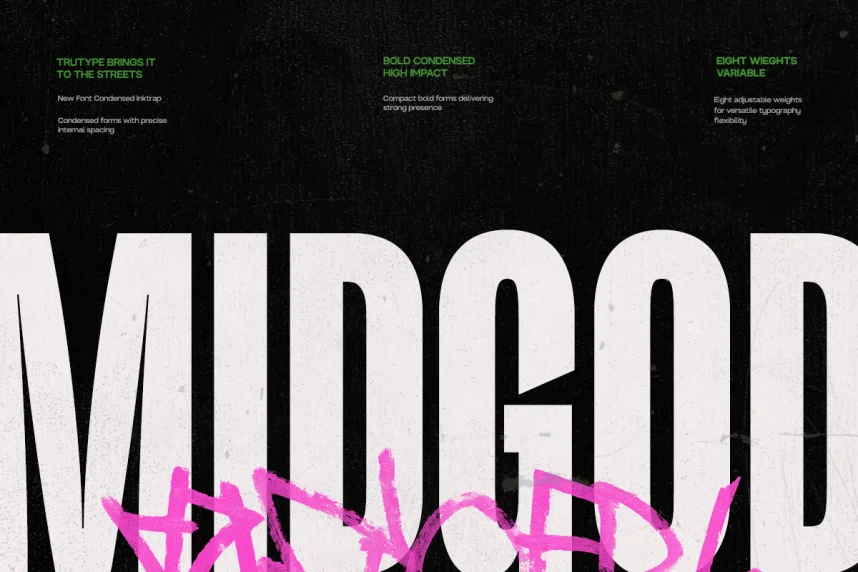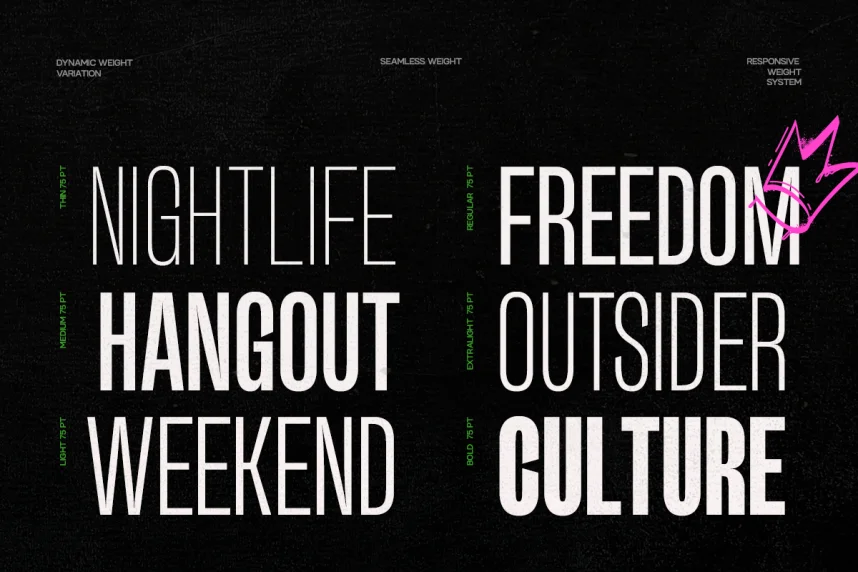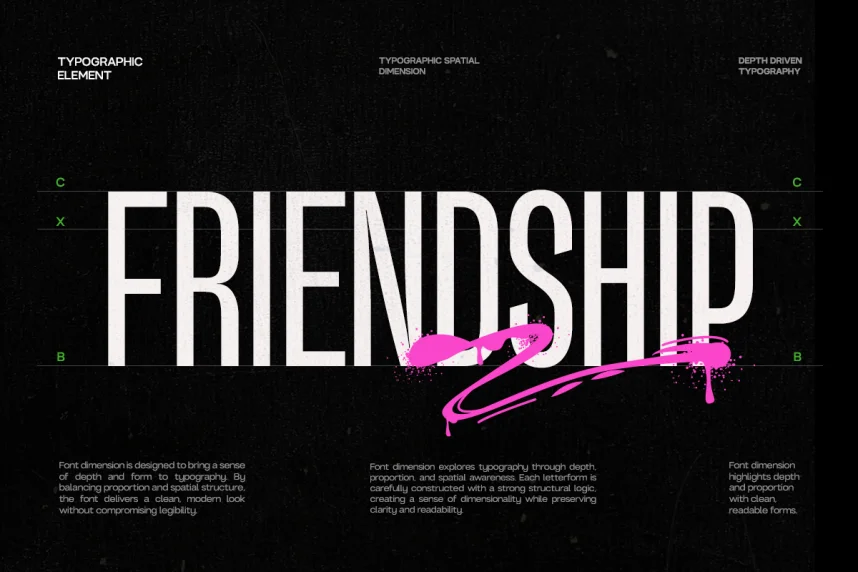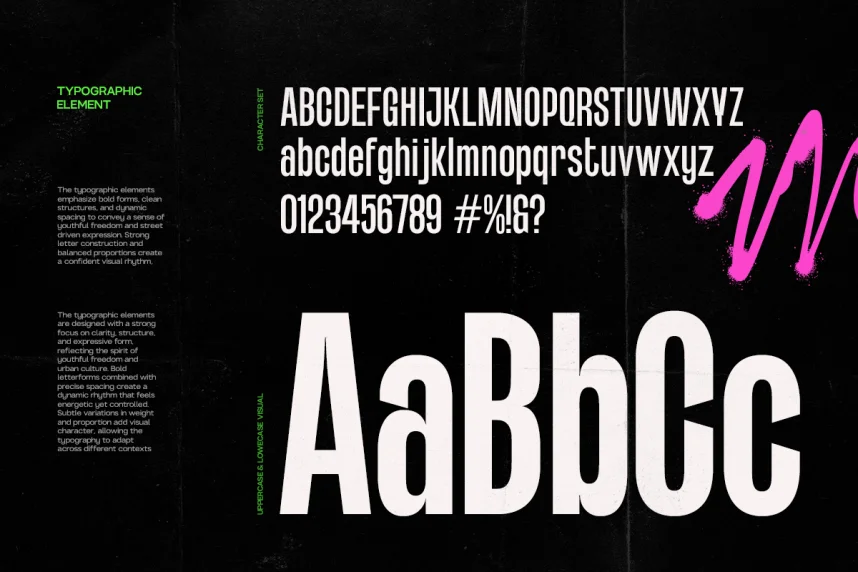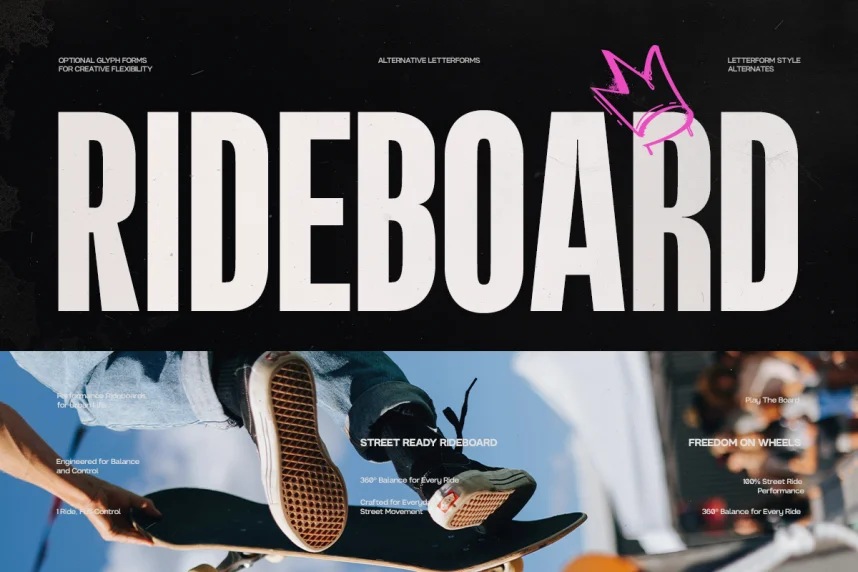
TRT Midgod Font is a modern display typeface designed for designers who need strong visual presence without sacrificing clarity. Many display fonts struggle with readability when used in branding or digital layouts. TRT Midgod solves this by using controlled proportions and consistent spacing across characters.
This font belongs to the display sans-serif category. Its letterforms feature bold strokes, clean edges, and balanced geometry. Stroke weight remains even across uppercase and lowercase characters, helping maintain legibility in headings and short text blocks. The font avoids decorative excess, making it easier to use across different screen sizes.
TRT Midgod works well for branding, logo design, website headers, posters, and social media graphics. It performs best at medium to large sizes where structure and alignment matter. Designers often pair it with a neutral sans-serif font for body text to create a clear typographic hierarchy.